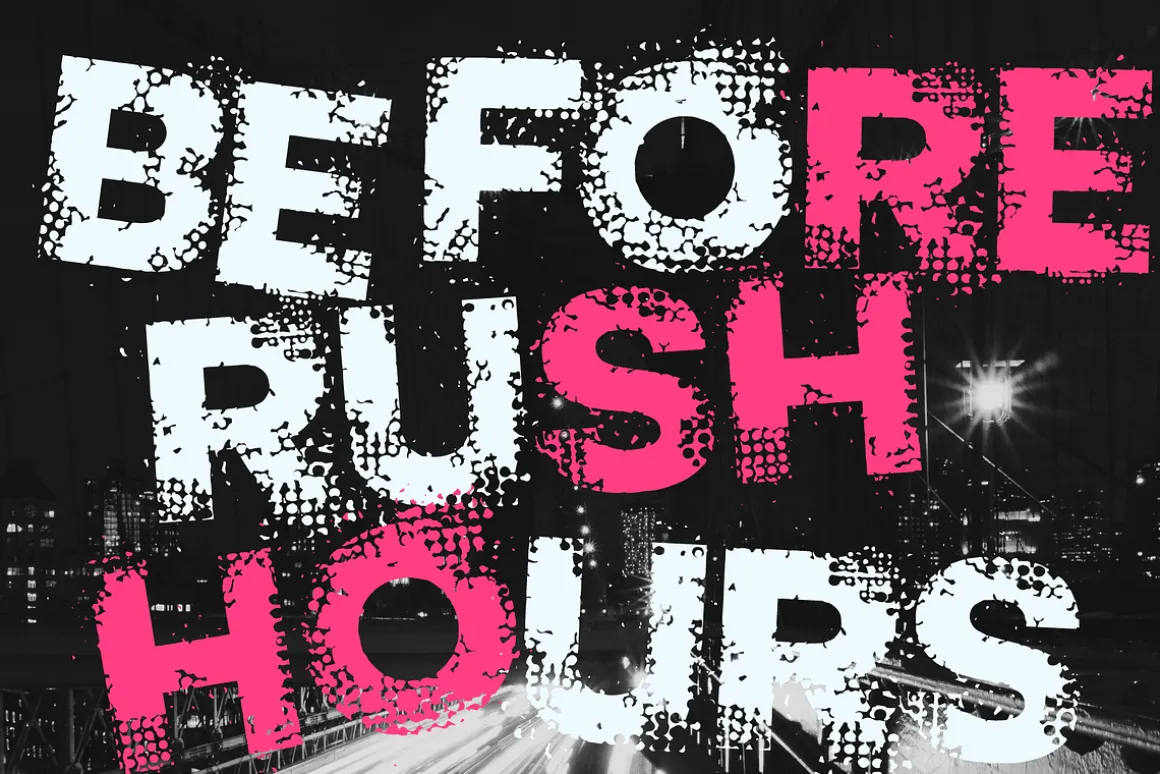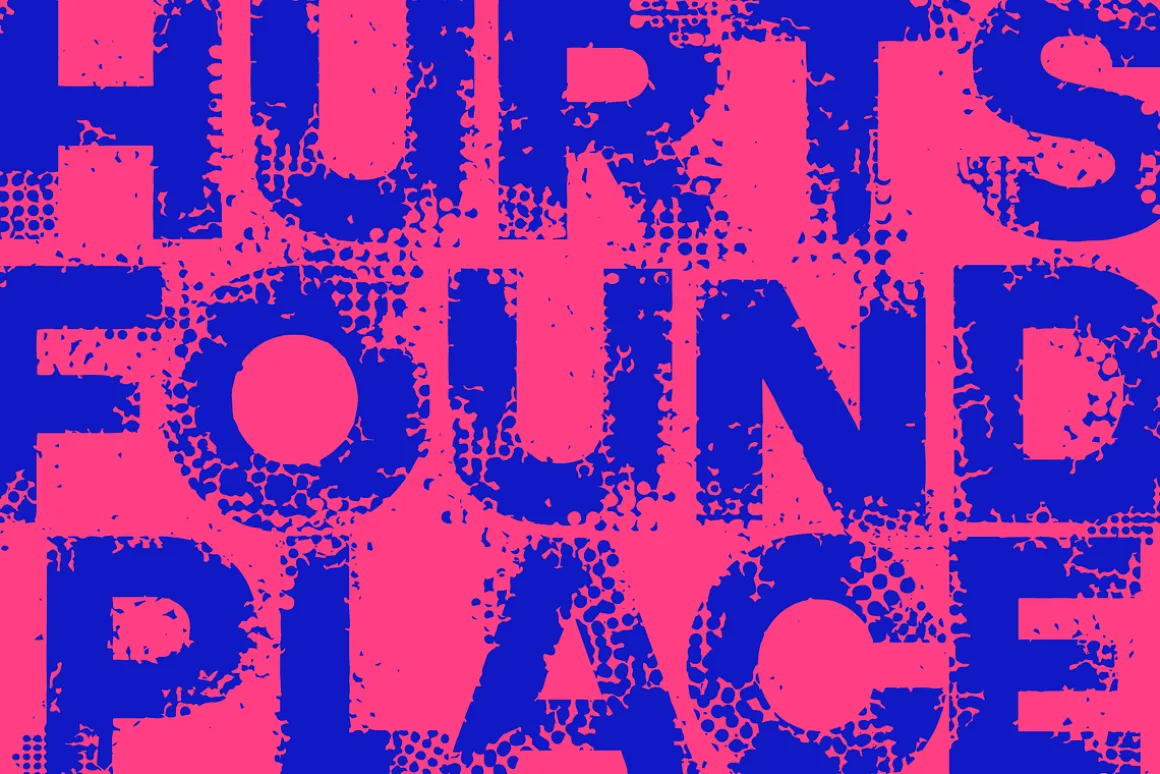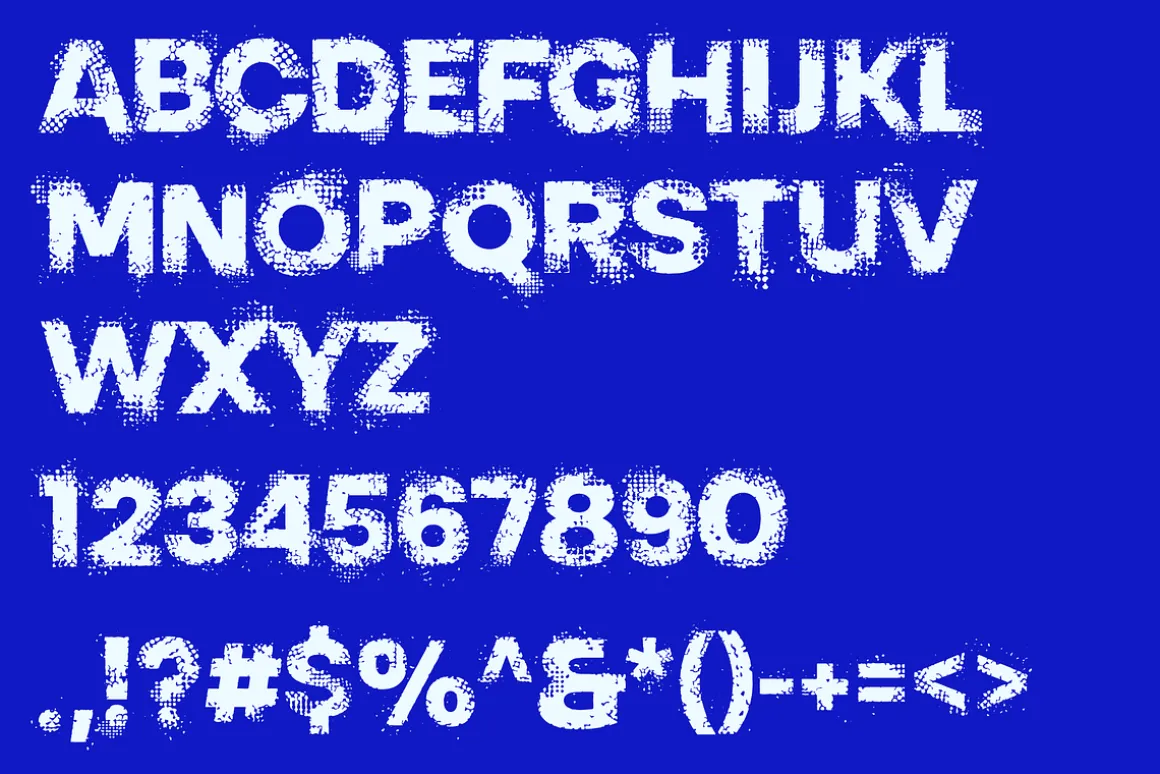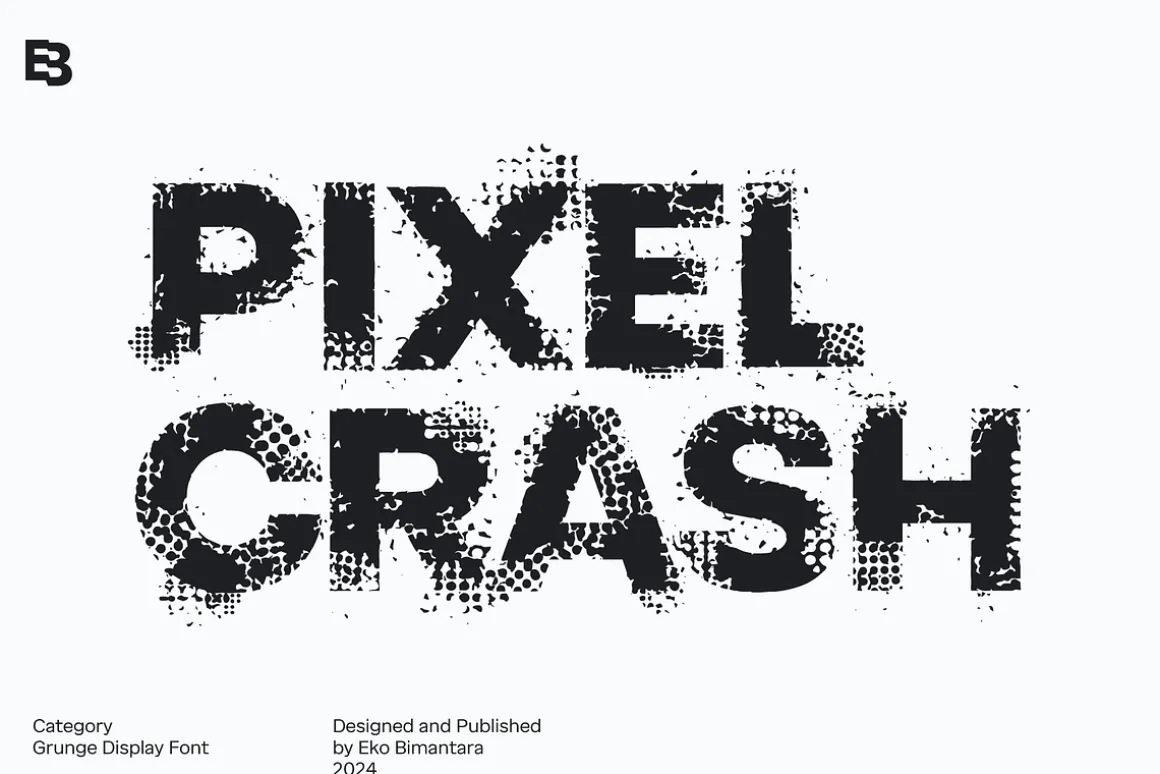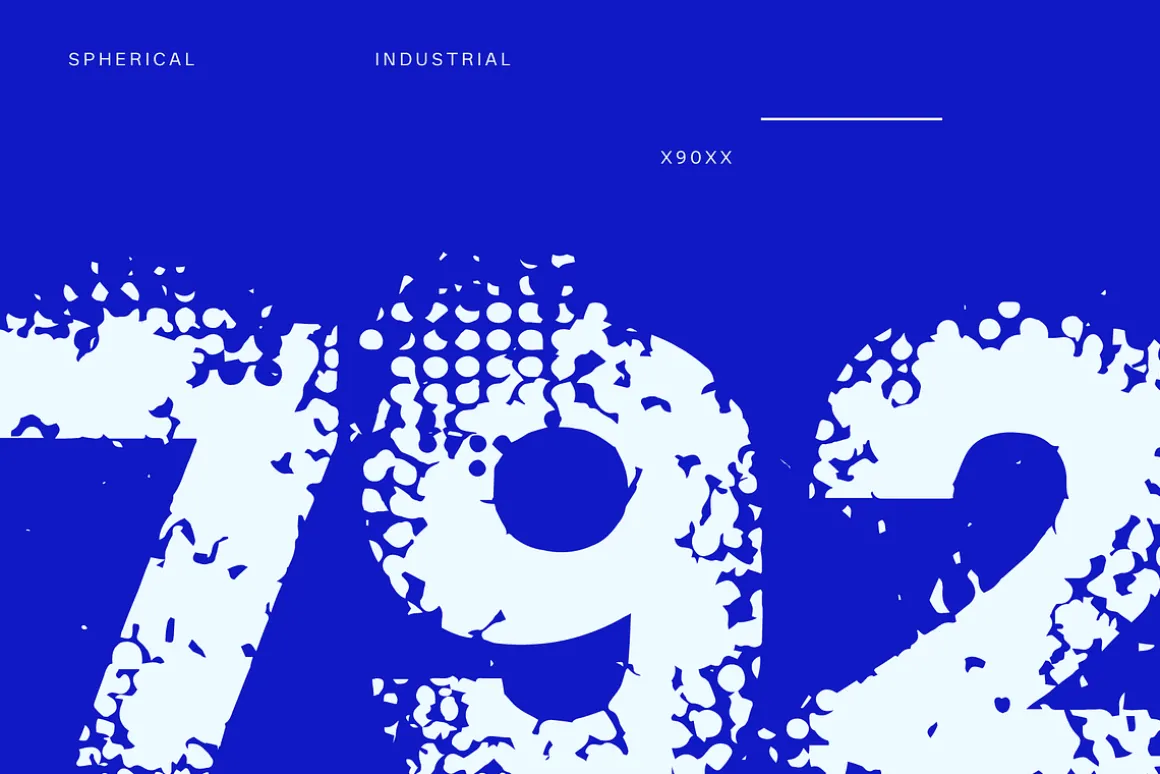
Pixel Crash is a bold grunge display font that embodies a modern, fractured aesthetic with its scatter style and all-caps design. Perfectly suited for themes such as urban, industrial, grunge, rustic, and futuristic, this font makes a striking statement in any creative project. It excels in display and large sizes, making it ideal for headers, posters, layout, and various designs needs. Whether for print or digital use, Pixel Crash delivers a distinctive look for a wide range of graphic design applications.